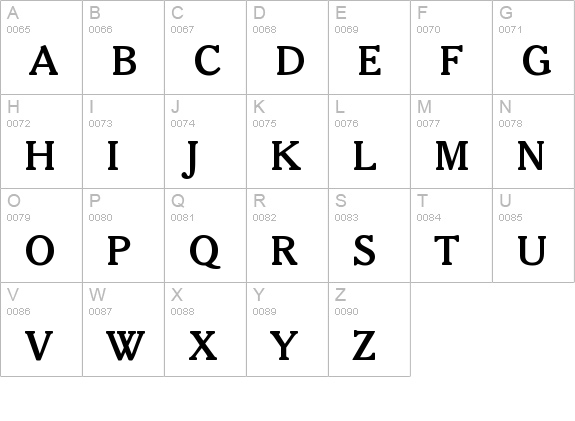
S790-Roman-Bold is a strong, high-contrast variant in the S790 typeface family \xE2\x80\x94 well suited to headlines, attention-grabbing titles, and strong calls-to-action.
S790-Roman-Bold font is a modern and stylish typeface that exudes confidence and sophistication. With its bold weight and Roman style, this font is perfect for making a bold statement in your designs. The clean lines and sharp edges of S790-Roman-Bold font make it versatile and suitable for a wide range of projects, from branding to editorial design. Best of all, S790-Roman-Bold font is available for free download at FontsMarket.com. This means you can easily access this high-quality font and use it in your projects without any cost. Don't miss out on the opportunity to enhance your designs with the bold and striking S790-Roman-Bold font today!